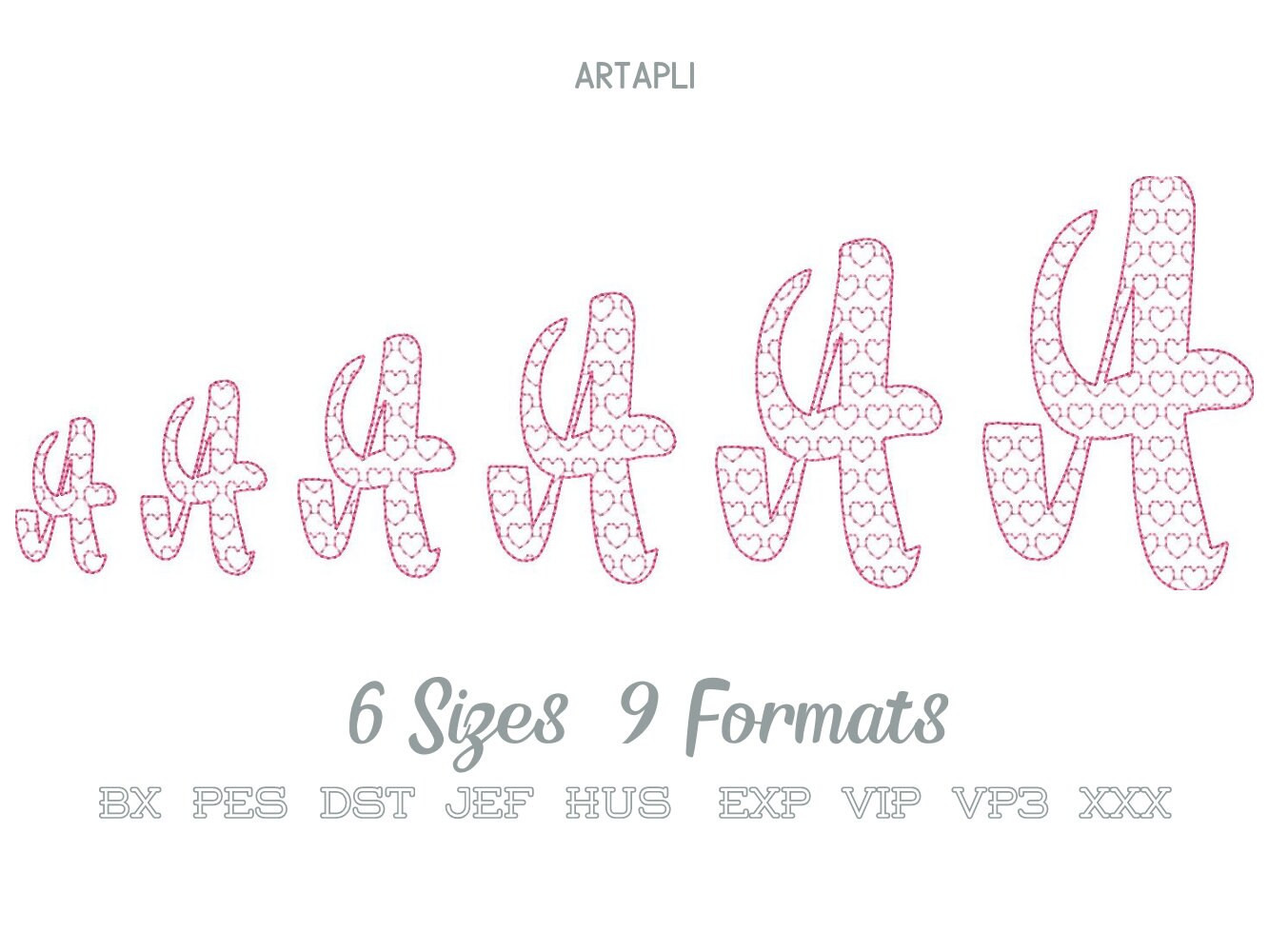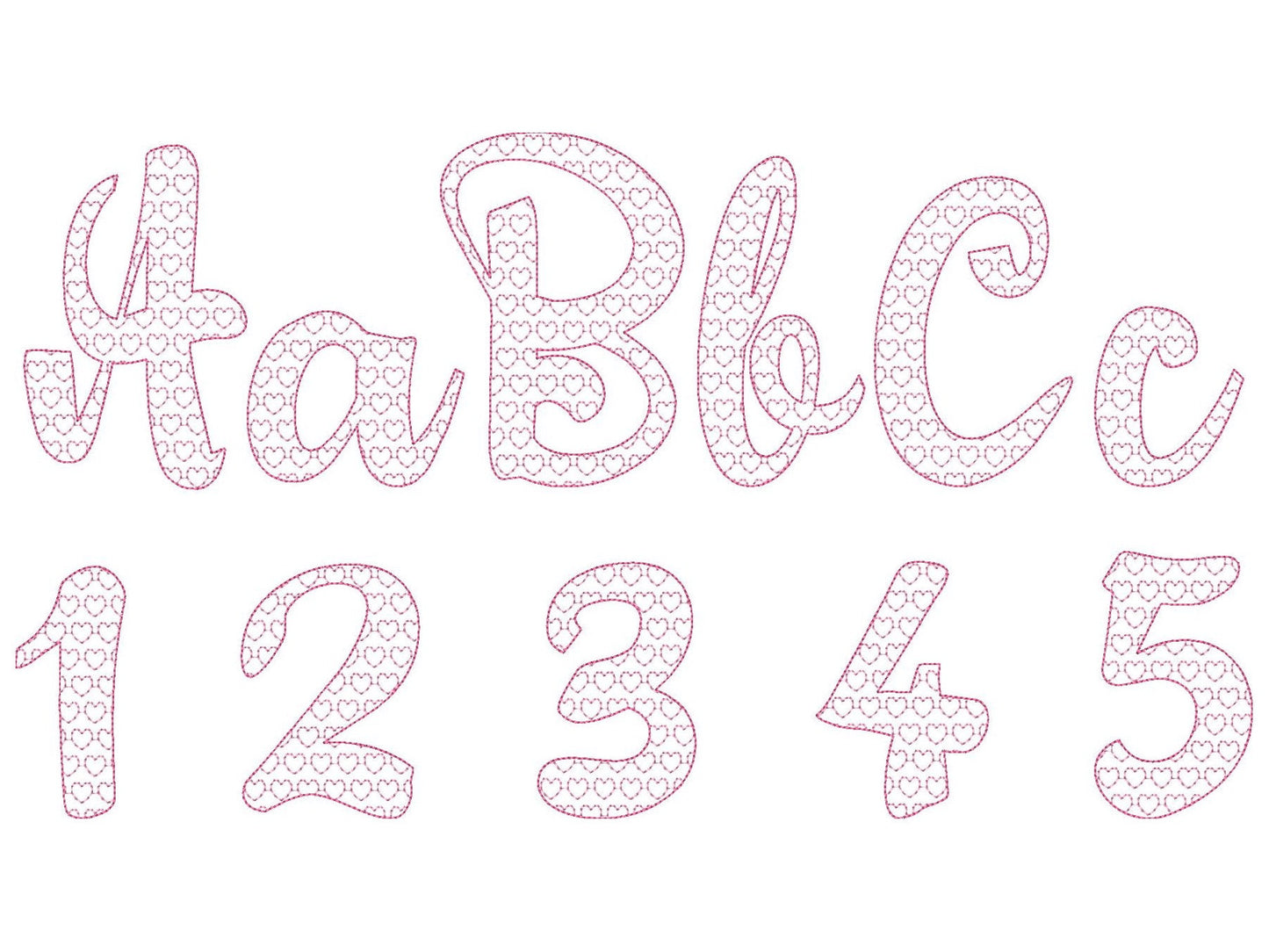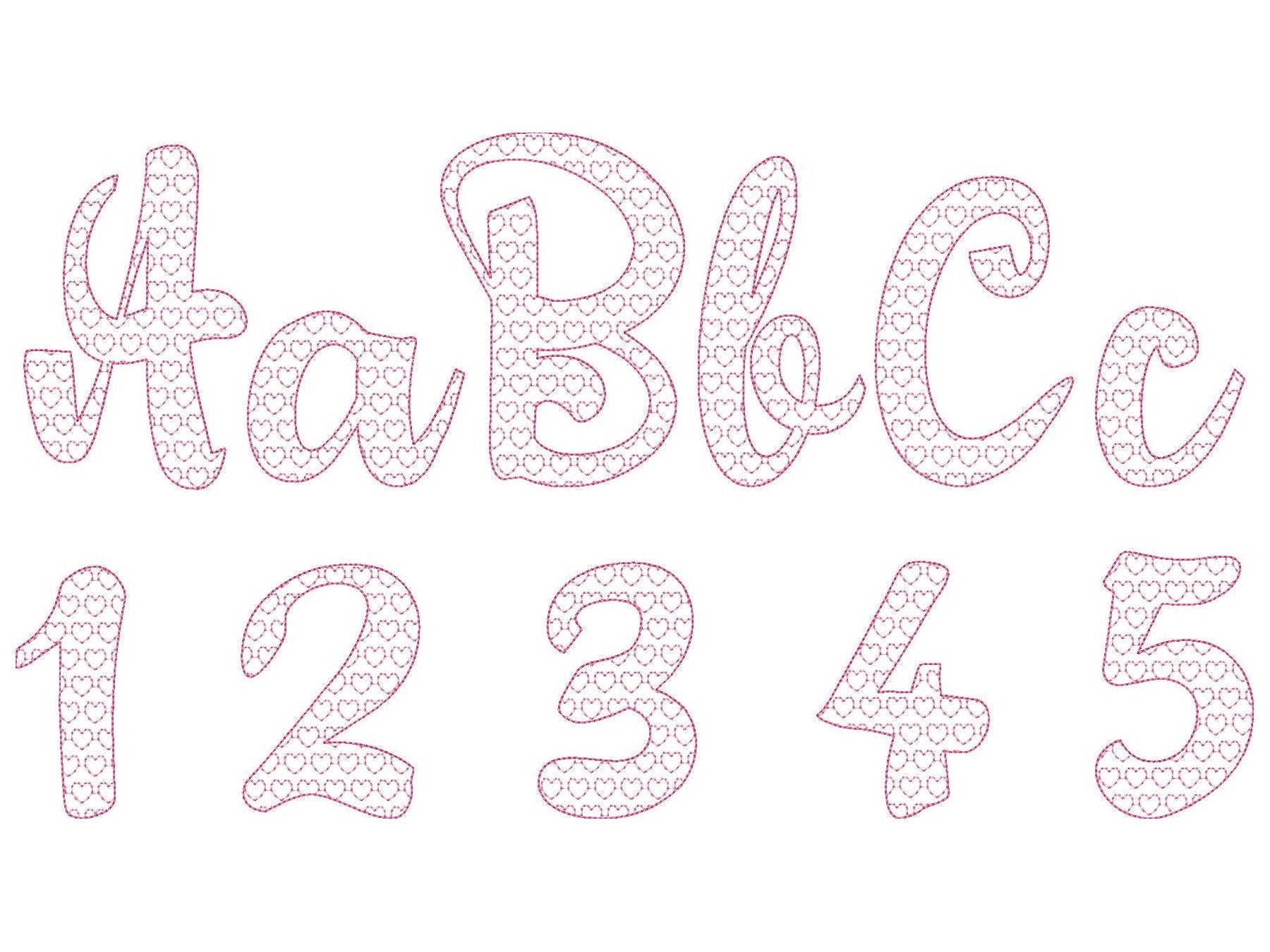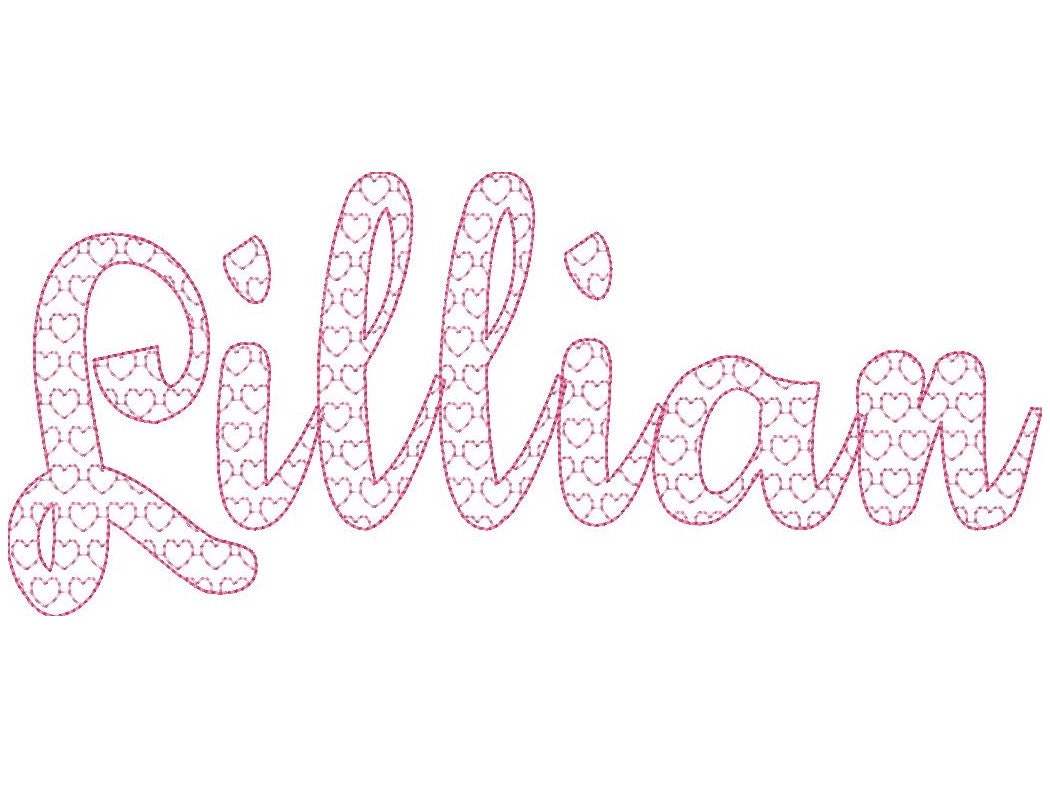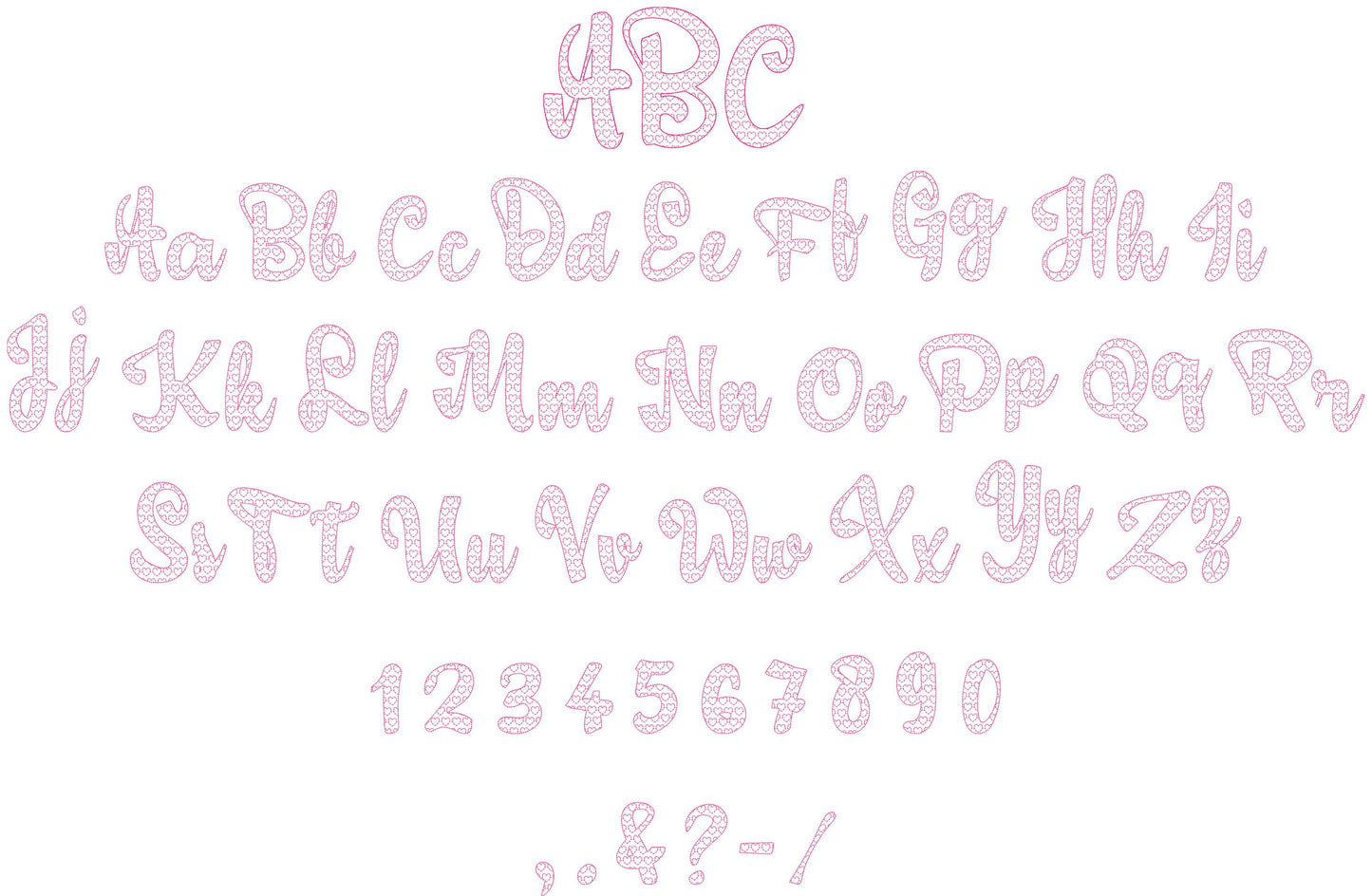
Or click to open the linkHeart Love hearted Font 2 two colors script cursive alphabet machine embroidery designs assorted sizes heart shape pattern kids name letters
The font is transparent and has light bean stitch heart shapes and an outline.
Included: uppercase and lowercase letters, numbers, and punctuation.